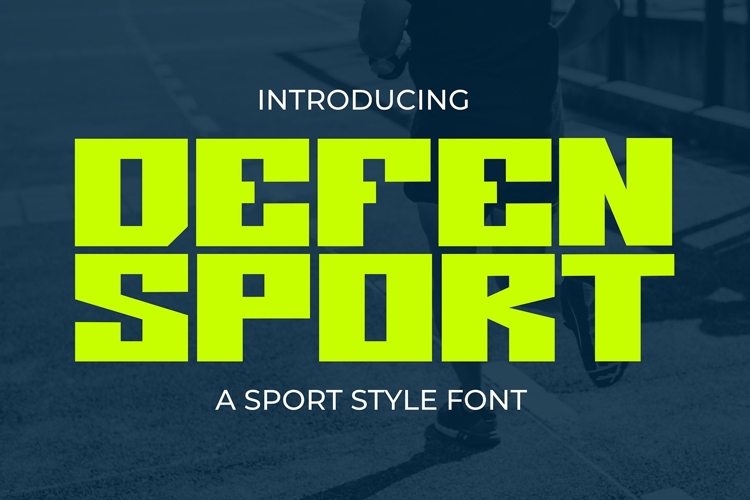
Defen Sport - Sporty Bold Font
Elevate your sports designs to victory with Defen Sport – the sporty bold font that exudes power, energy, and championship spirit. More than just a font, Defen Sport is a powerhouse tool for crafting dynamic and impactful designs that inspire athletes and fans alike to push the limits and achieve greatness.
� Championship Vibes: Defen Sport commands attention with its bold and dynamic letterforms that radiate confidence and strength. Each character is meticulously crafted to embody the winning spirit of champions, making it the perfect choice for sports-related projects that demand a bold statement.
⚽ Unleash the Energy: Whether you're designing team logos, posters, or apparel, Defen Sport injects an electrifying energy into every design. Its bold and robust style ignites passion and excitement, rallying fans and athletes to unleash their full potential on the field or court.
� Built for Victory: Defen Sport is designed to dominate. Its bold and impactful design ensures your message is seen and remembered, whether on jerseys, banners, or digital screens. With Defen Sport, victory is within reach.
� Athletic Appeal: Embrace the athletic spirit with Defen Sport. Its sporty aesthetic resonates with athletes and fans alike, capturing the adrenaline-fueled excitement of the game and inspiring everyone to give their all in pursuit of victory.
� Versatile Performance: From professional teams to local leagues, Defen Sport delivers a winning performance in any arena. Its versatility allows it to adapt seamlessly to a variety of sports-related projects, ensuring consistent and impactful branding across all platforms.
� Stadium-Worthy Style: Inspired by the roar of the crowd and the thrill of victory, Defen Sport brings the stadium atmosphere to your designs. Its bold and dynamic style mirrors the intensity of live sports events, creating an immersive experience for fans and athletes alike.
Score big with Defen Sport – where power meets passion, and every design is a champion. It's time to take your sports branding to the next level with this best-selling sporty bold font leading the way.